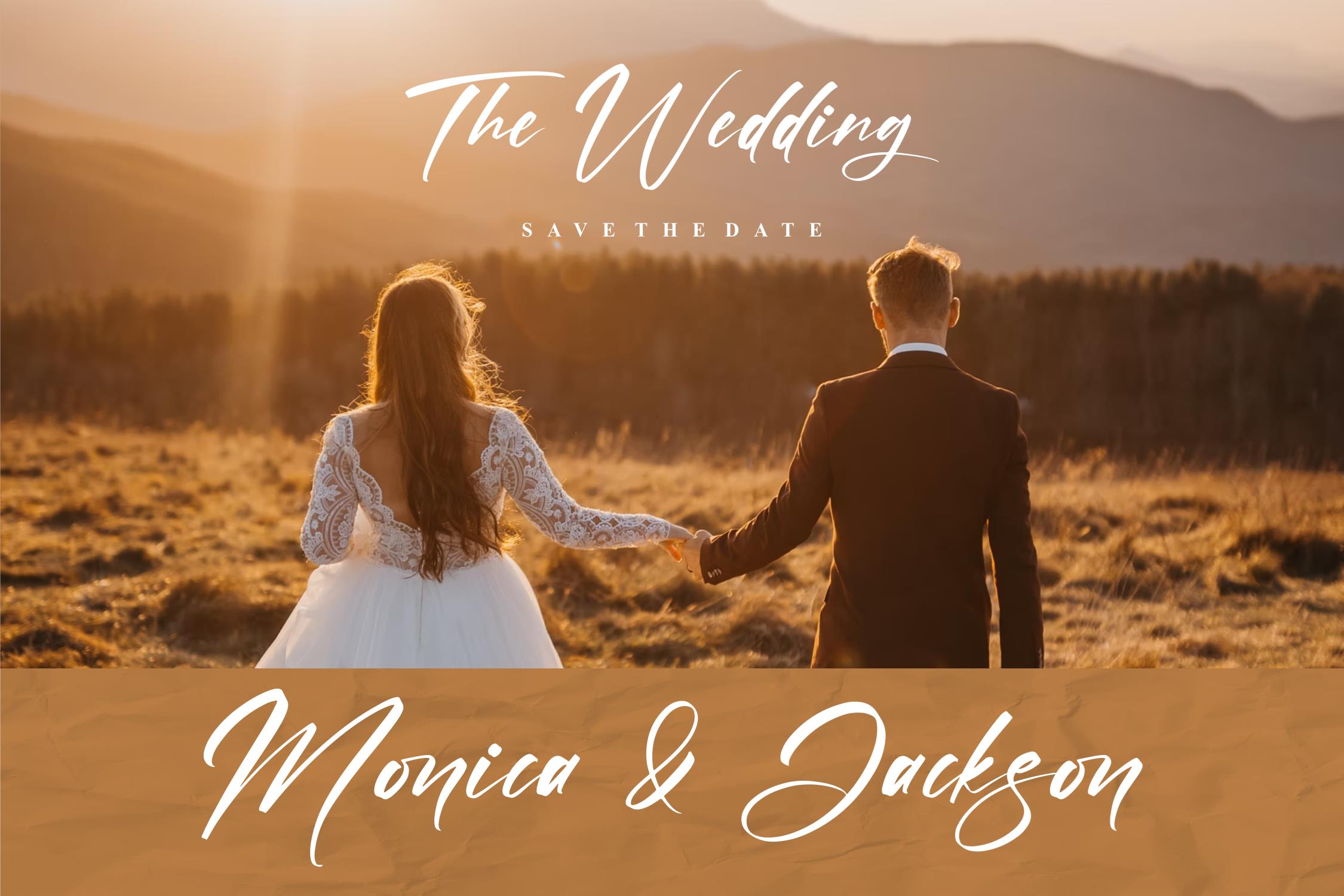
Masterly – Modern Signature Font
Masterly – Modern Signature Font , from Letternity Studio,suitable for any projects such as: logos, branding projects, homeware designs, product packaging, mugs, quotes, posters, shopping bags, t-shirts, book covers, name card, invitation cards, greeting cards, label, photography, watermark, special events, and all your other lovely projects that need a beautiful script taste.